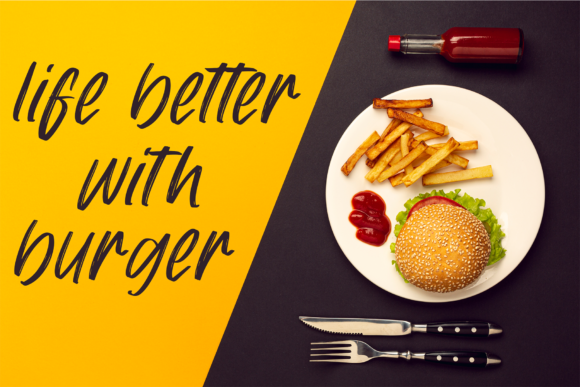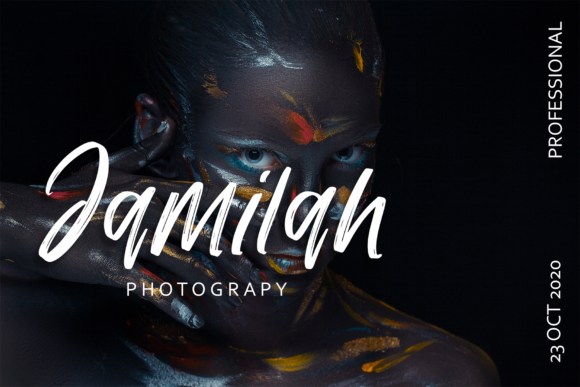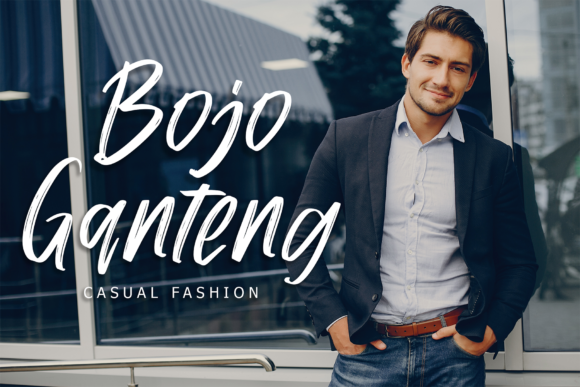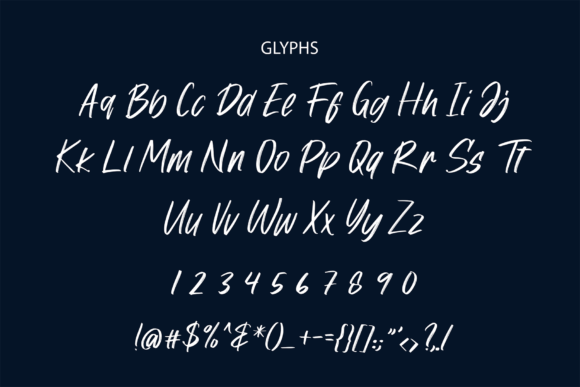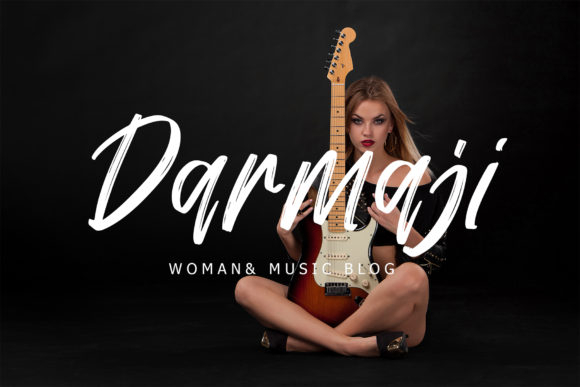
Brownie Font
About Brownie Font
Meet Brownie, a mesmerizing flowing handwritten font, lovingly crafted with the artful strokes of a brush pen. This font is a true beauty, and its charm knows no bounds. Whether you’re designing wedding invitations, thank you cards, quotes, greeting cards, logos, business cards, or any other project that craves a touch of elegance, Brownie is here to elevate your designs to a whole new level.
When it comes to wedding invitations, Brownie steals the show with its graceful and flowing nature. Each letter dances on the paper, creating an air of romance and sophistication that perfectly sets the tone for the special day. Your guests will be captivated by the font’s beauty and feel the love and joy that permeate every word.
Gratitude becomes an art form with Brownie as you use it for thank you cards. Its handwritten touch conveys heartfelt appreciation with a personal and warm feel, making your expressions of thanks truly heartfelt and memorable.
For quotes that inspire and uplift, Brownie adds a touch of authenticity that resonates with readers. Whether you’re sharing motivational messages on social media or designing beautiful prints for your walls, this font infuses your words with a sense of genuine connection.
Greeting cards come to life with Brownie’s flowing handwritten style. Be it birthdays, holidays, or special occasions, the font’s elegance and charm make your greetings truly stand out, making the recipient feel cherished and special.
In branding and logo design, Brownie is a game-changer. Its handcrafted look adds a personal touch, making your brand feel approachable and relatable. From small businesses to creative ventures, this font creates a memorable identity that leaves a lasting impression.
Business cards take on a new level of sophistication with Brownie. As you hand them out, the font’s flowing elegance sets the stage for meaningful connections and opportunities. It leaves potential clients and collaborators with a lasting impression of professionalism and style.
Every other design seeking a handwritten touch finds its perfect match in Brownie. From packaging to social media graphics and beyond, this font brings a touch of authenticity and elegance that enhances the overall aesthetic of your creations.
In conclusion, Brownie is more than just a font; it’s an artful masterpiece that brings elegance, sophistication, and authenticity to every project it graces. With its flowing handwritten style, designed with the help of a brush pen, Brownie enhances wedding invitations, thank you cards, quotes, greeting cards, logos, business cards, and any other design that craves an exquisite touch. Embrace the beauty of Brownie and watch as your designs blossom with its captivating allure. Let your creativity soar in the enchanting embrace of Brownie, the flowing handwritten font that turns every project into a work of art.